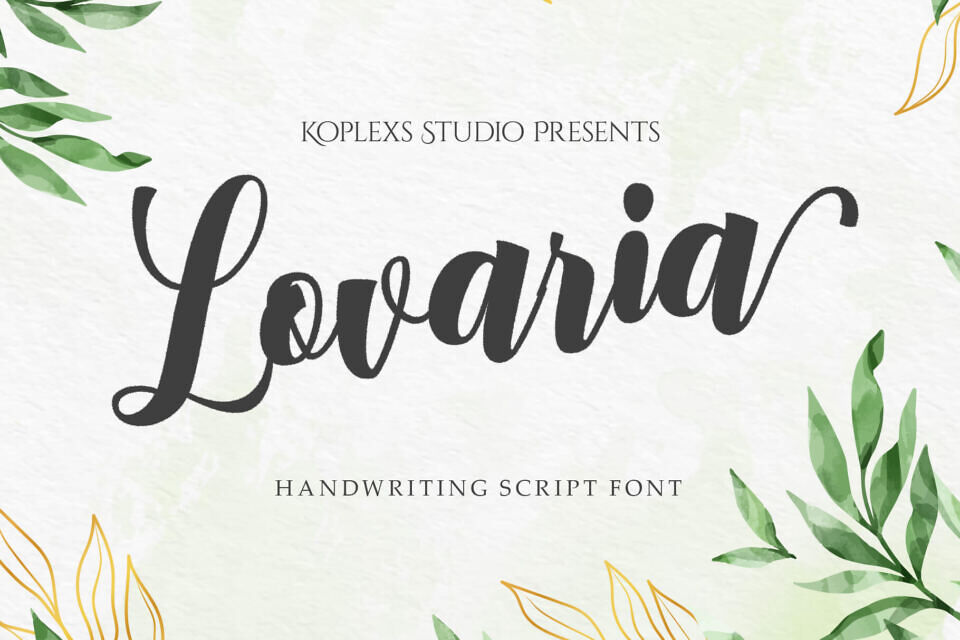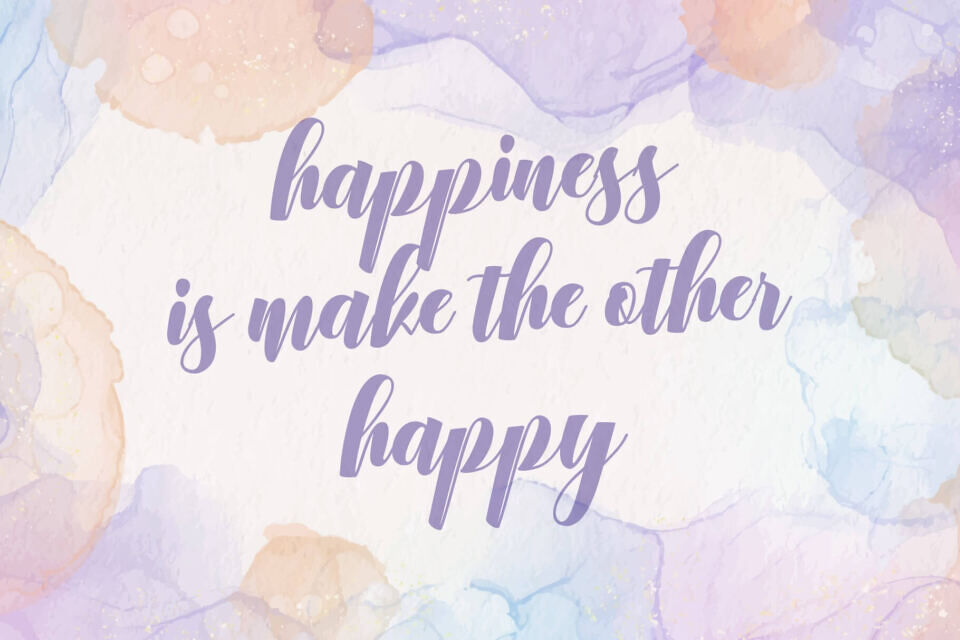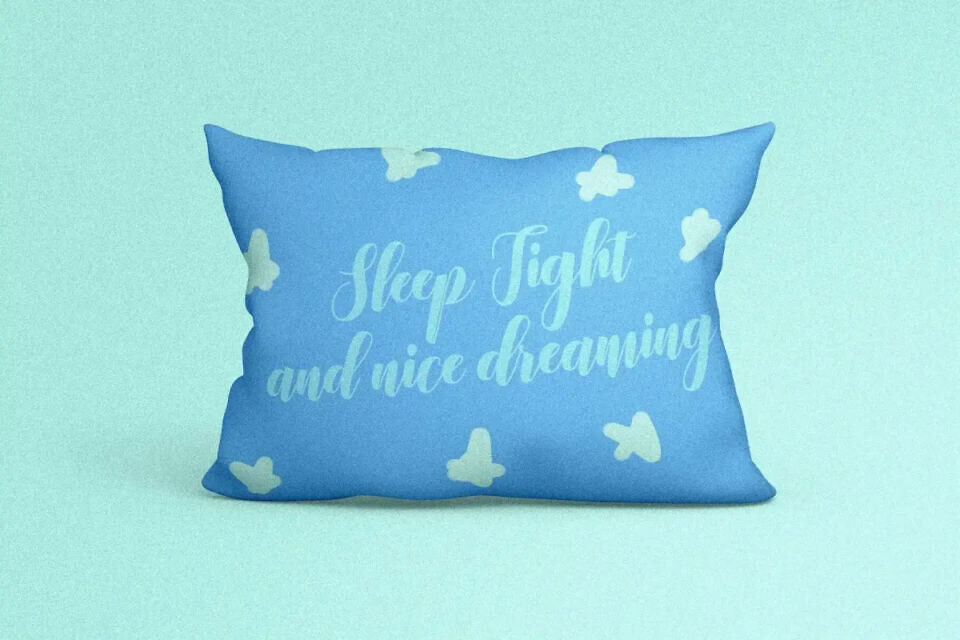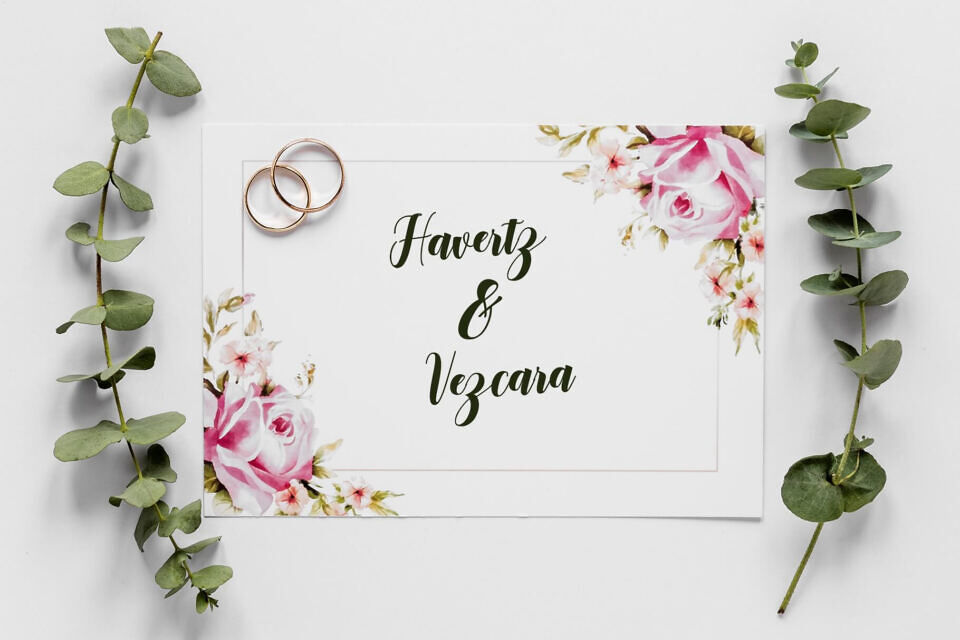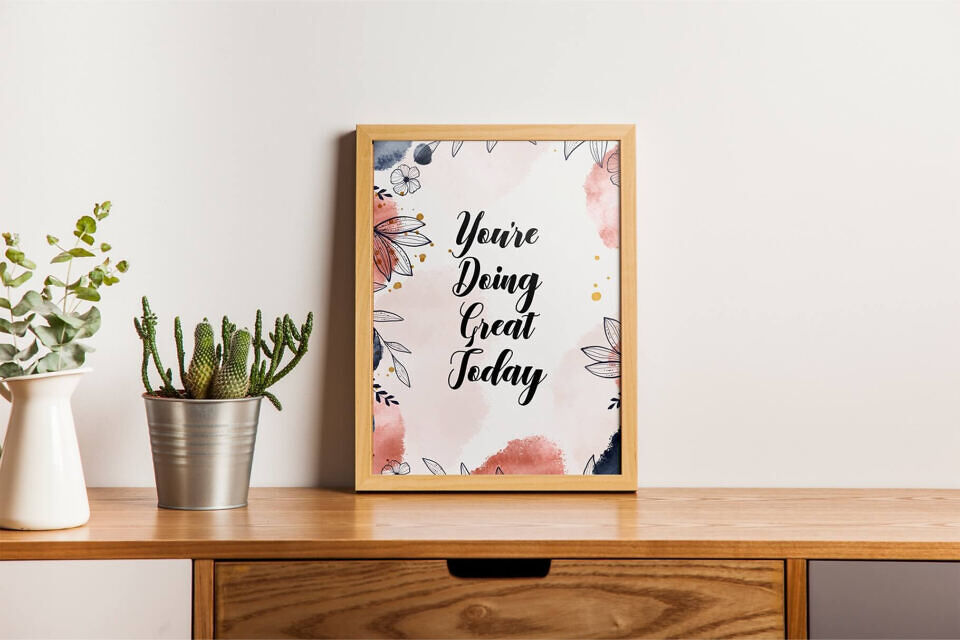
Lovaria Font
Lovaria Font is a stunning Handwritten Font crafted with an elegant and natural flow. Designed as a perfect blend of Script Font, Signature Font, and Cursive Font, Lovaria brings a personal and sophisticated touch to any design project. With its graceful strokes and modern yet timeless style, it works beautifully as a Wedding Font, Branding Font, Cosmetic Font, Aesthetic Font, and Calligraphy Font.
This typeface embodies the charm of modern fonts, balancing the warmth of handwriting with the luxury of professional typography. Whether you need a stylish Logo Font, a Luxury Font for packaging, or an Elegant Font for invitations, Lovaria adapts seamlessly to multiple design needs.